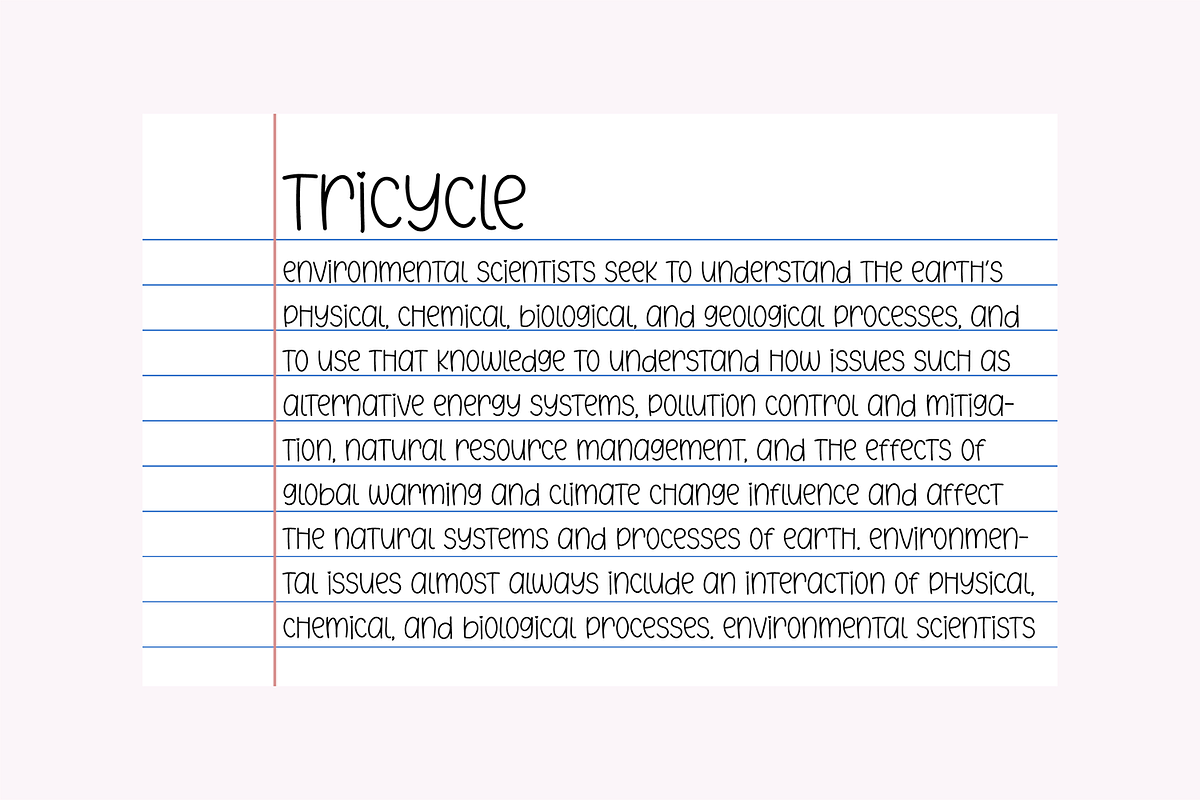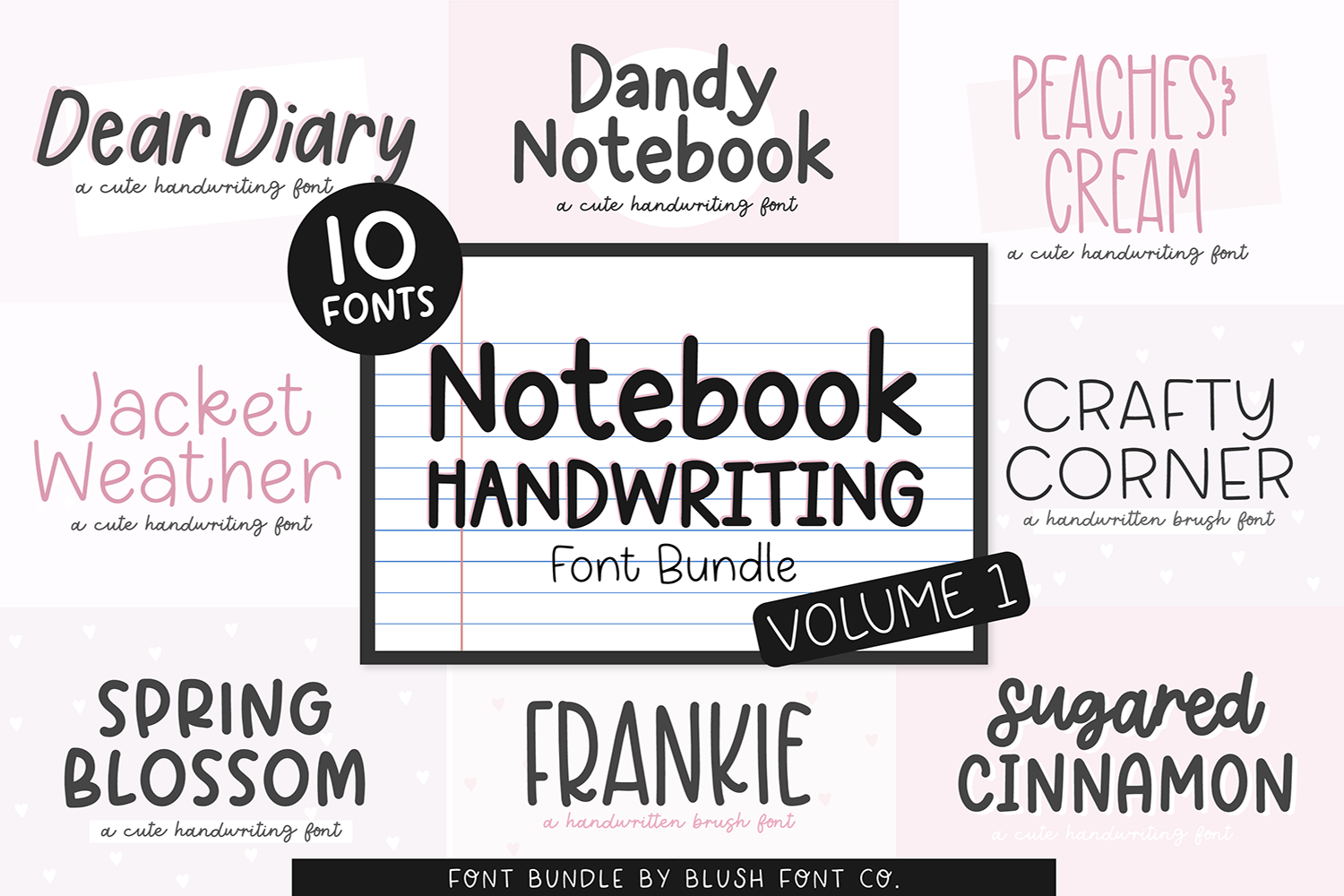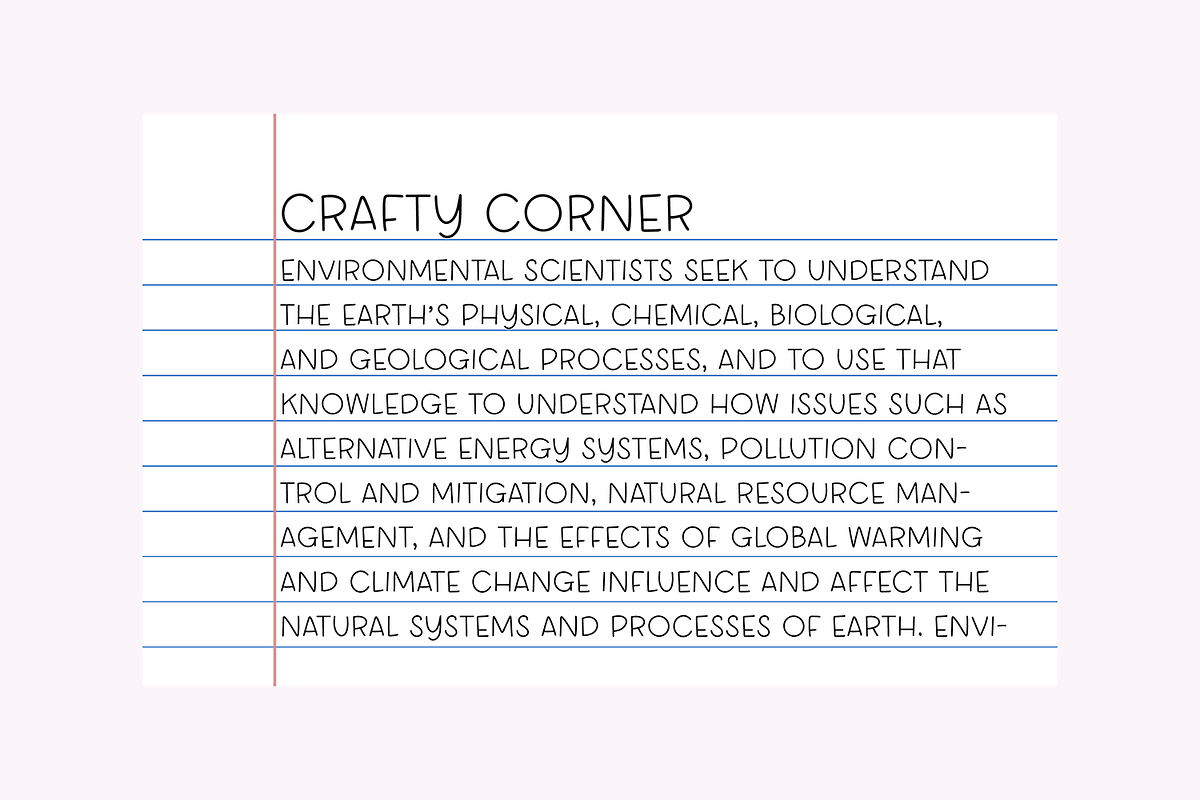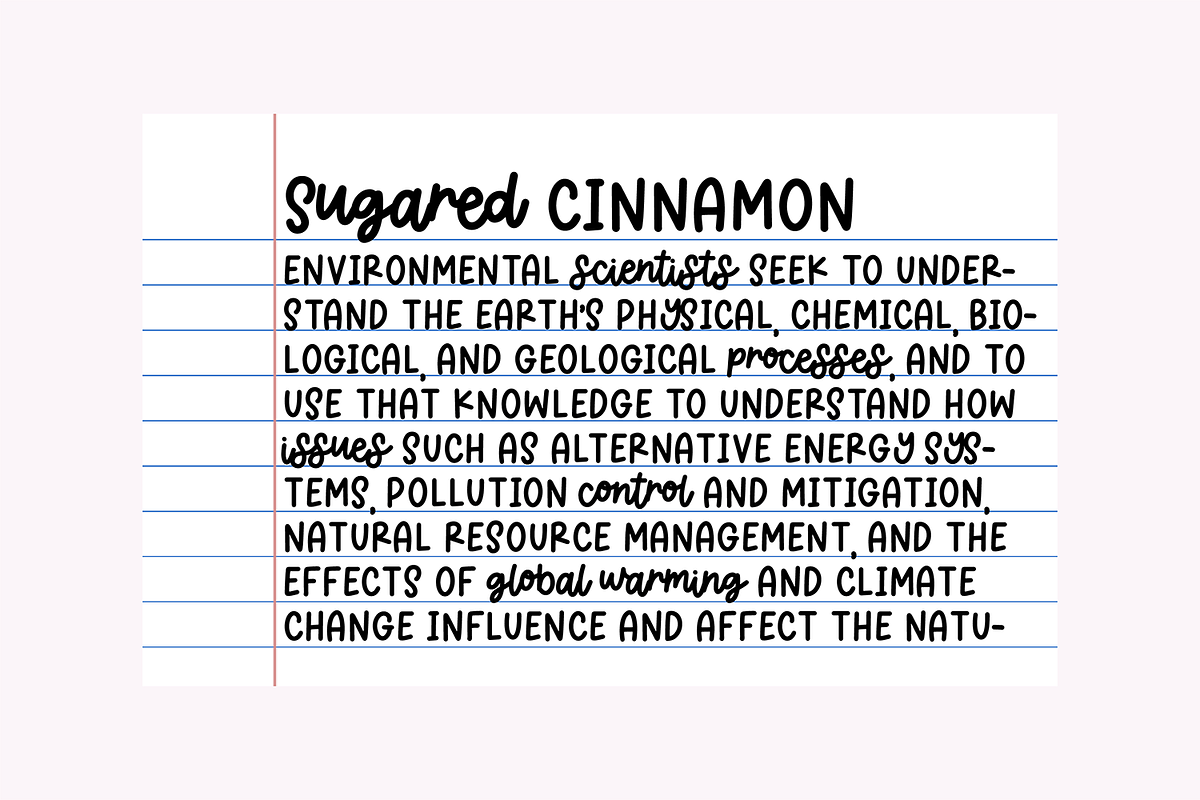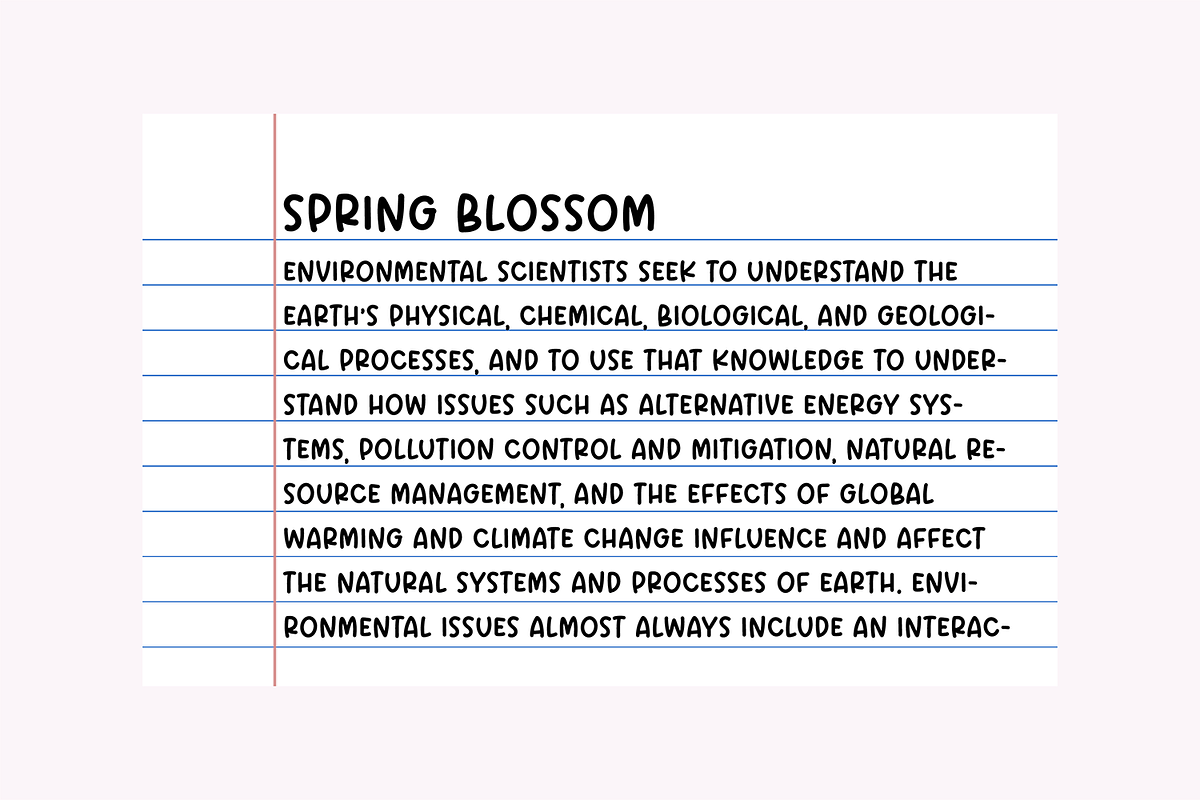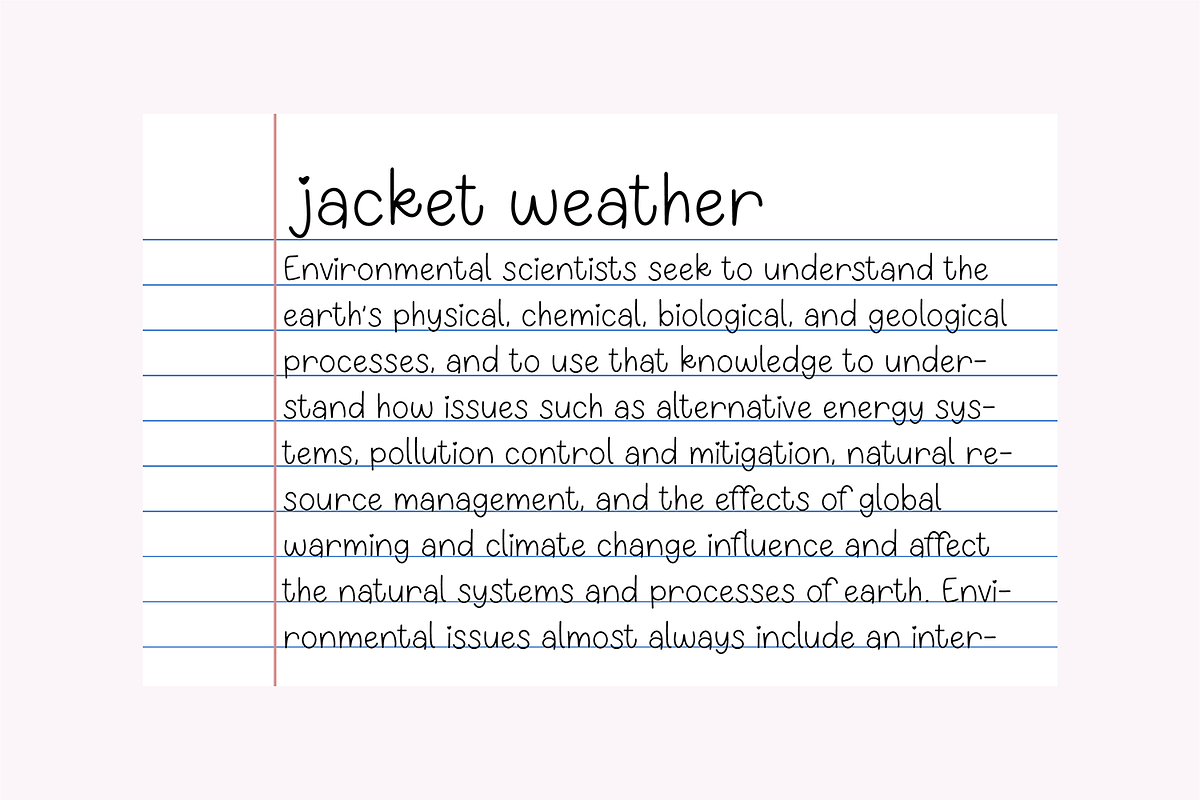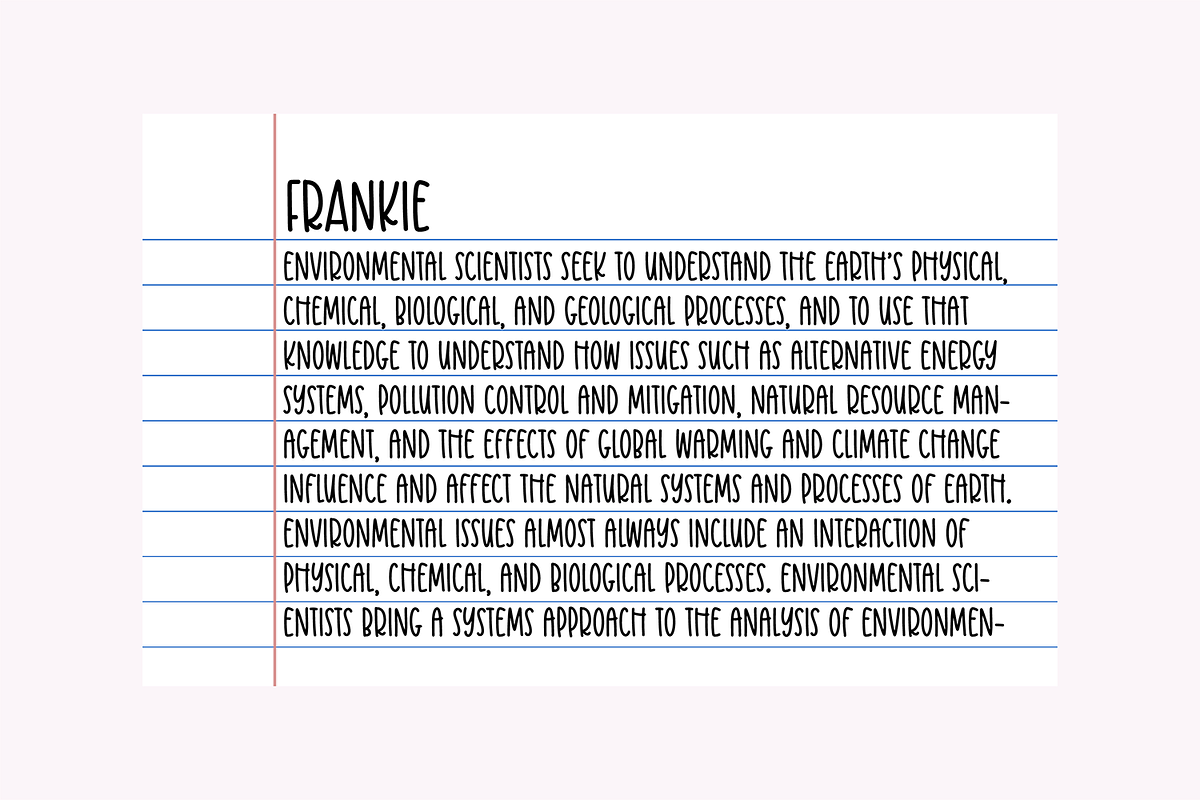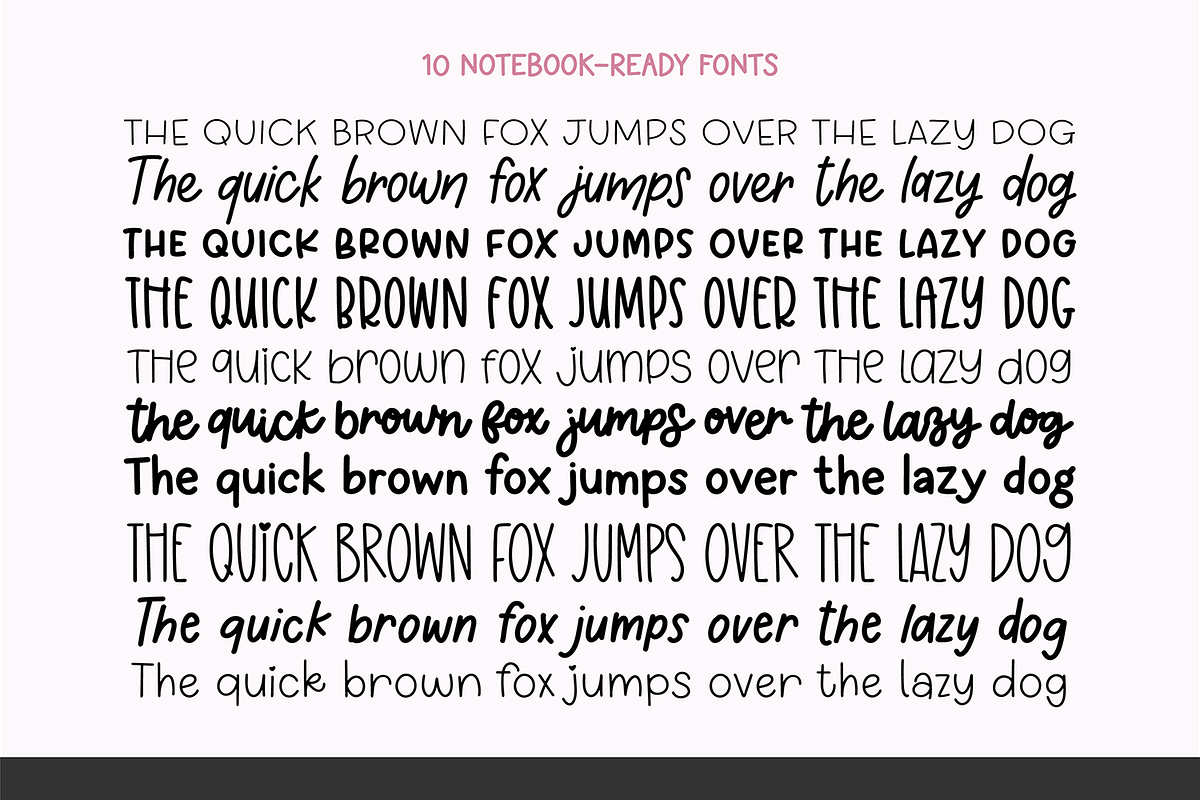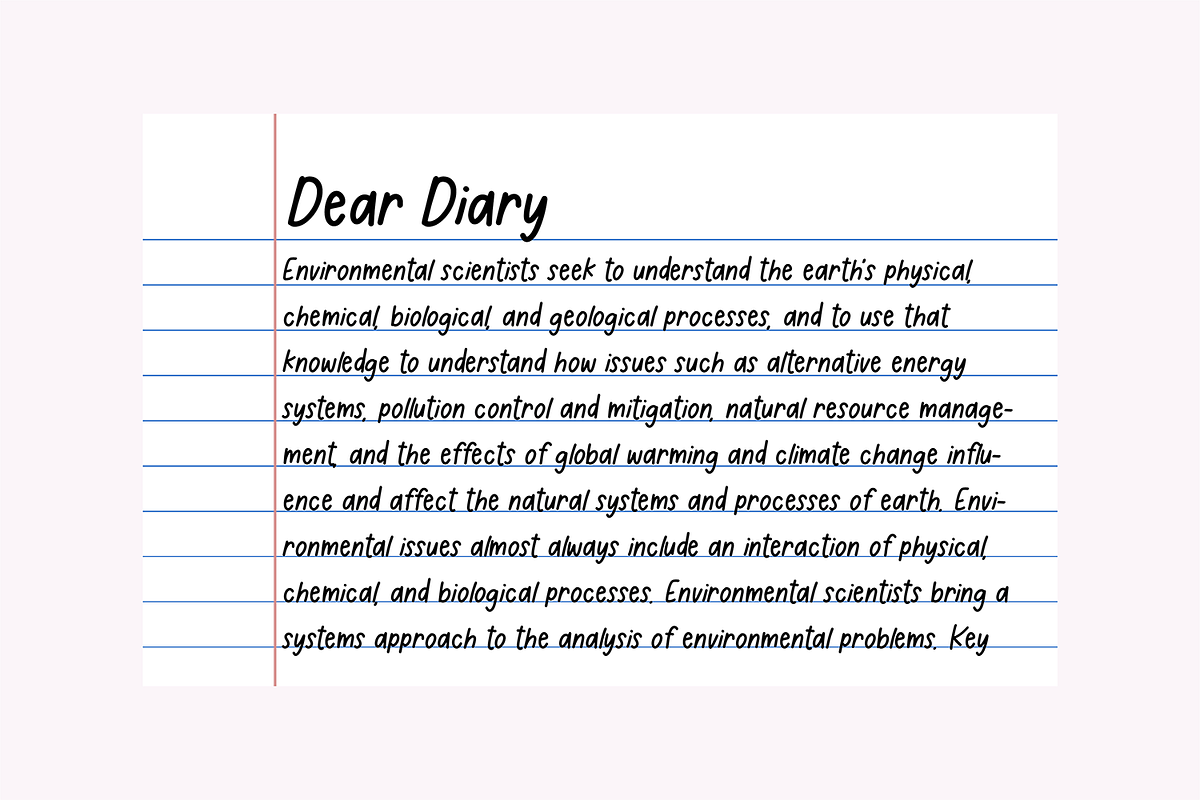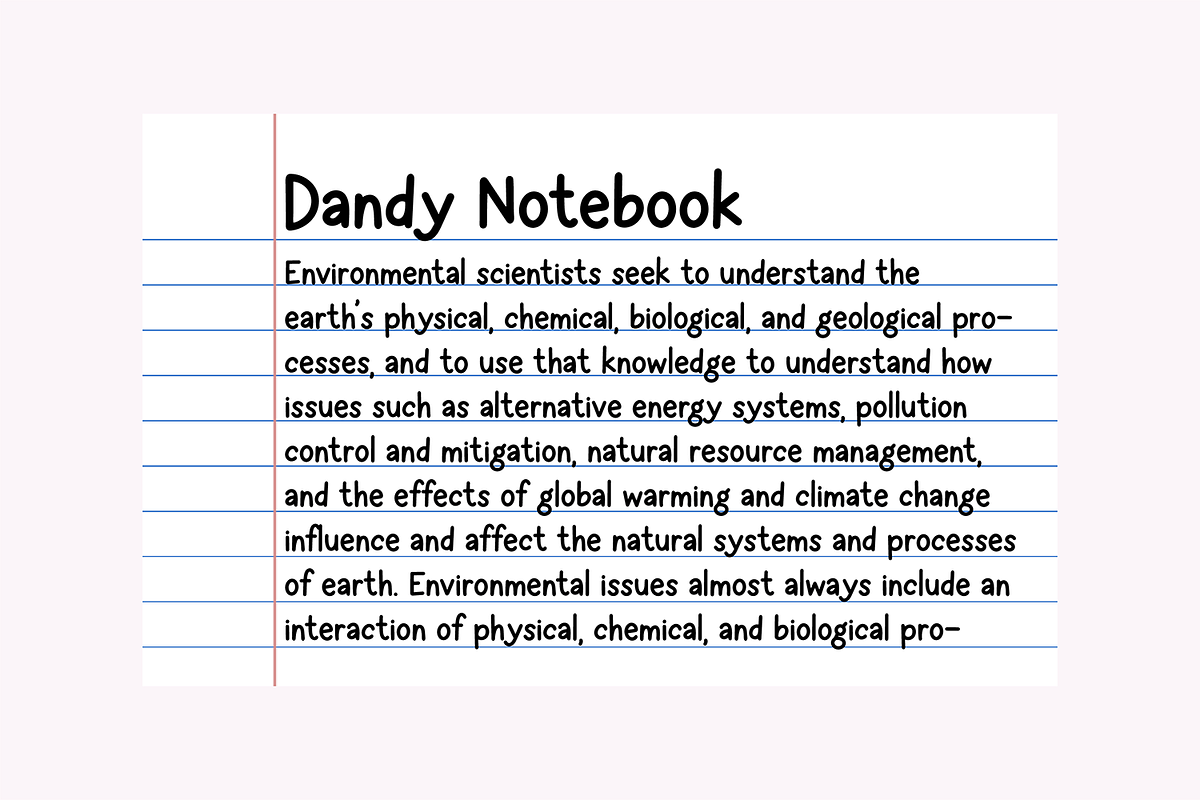
NOTEBOOK HANDWRITING Font Bundle
NOTEBOOK HANDWRITING Font Bundle Vol. 1 - 10 fonts!
10 fonts specialized for note-taking.
Fonts Included: DEAR DIARY CRAFTY CORNER DANDY NOTEBOOK FRANKIE JACKET WEATHER PEACHES AND CREAM SPRING BLOSSOM SUGARED CINNAMON MARSHY NIGHT TRICYCLE